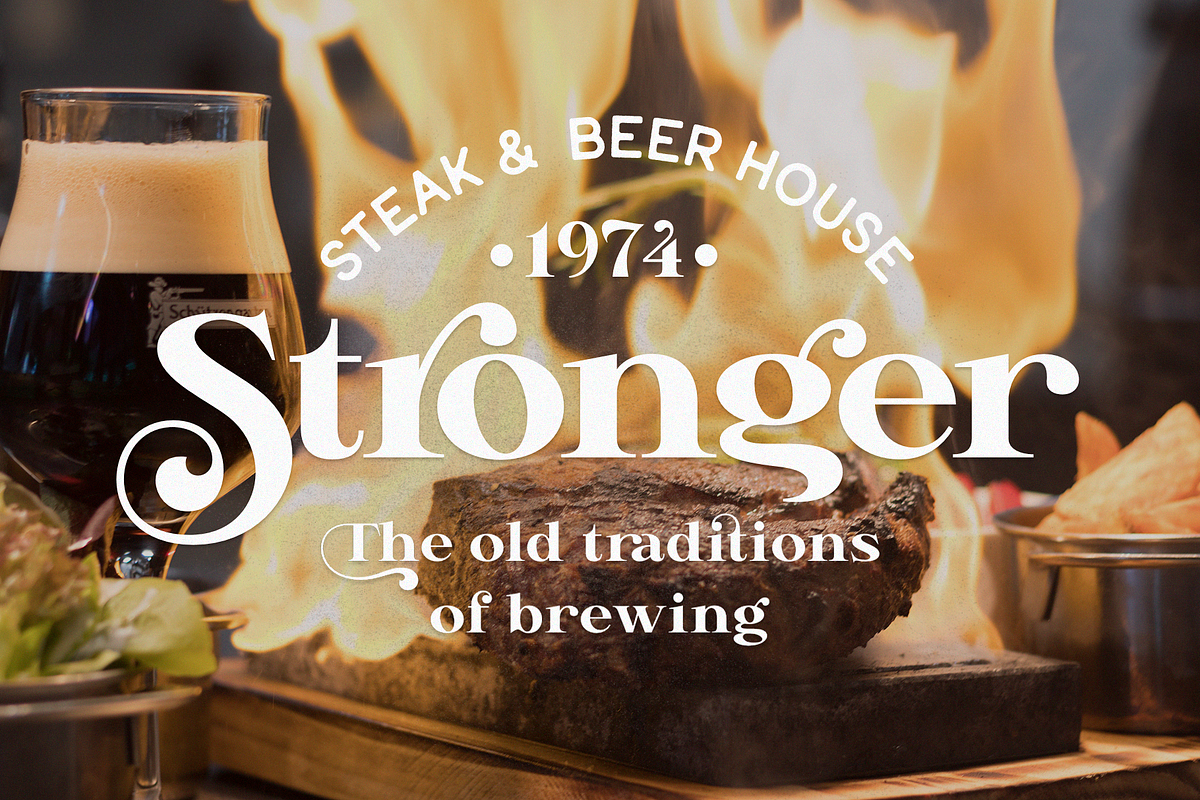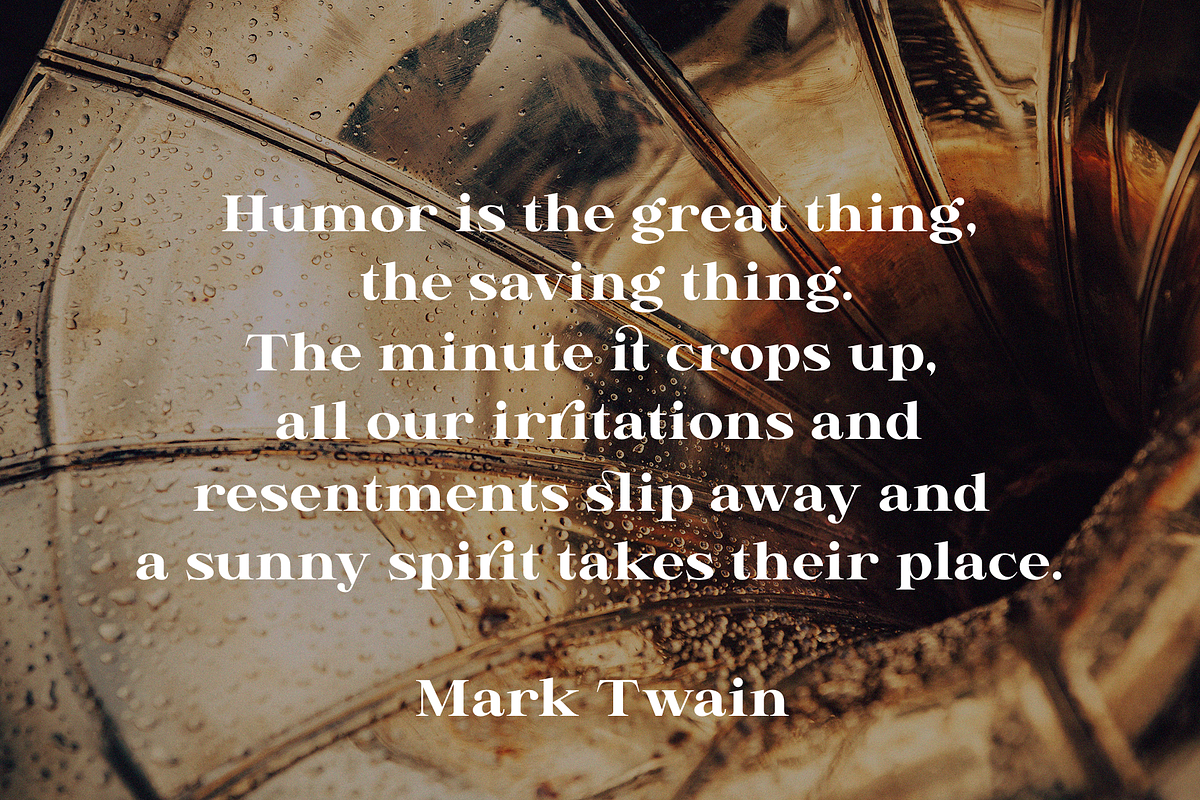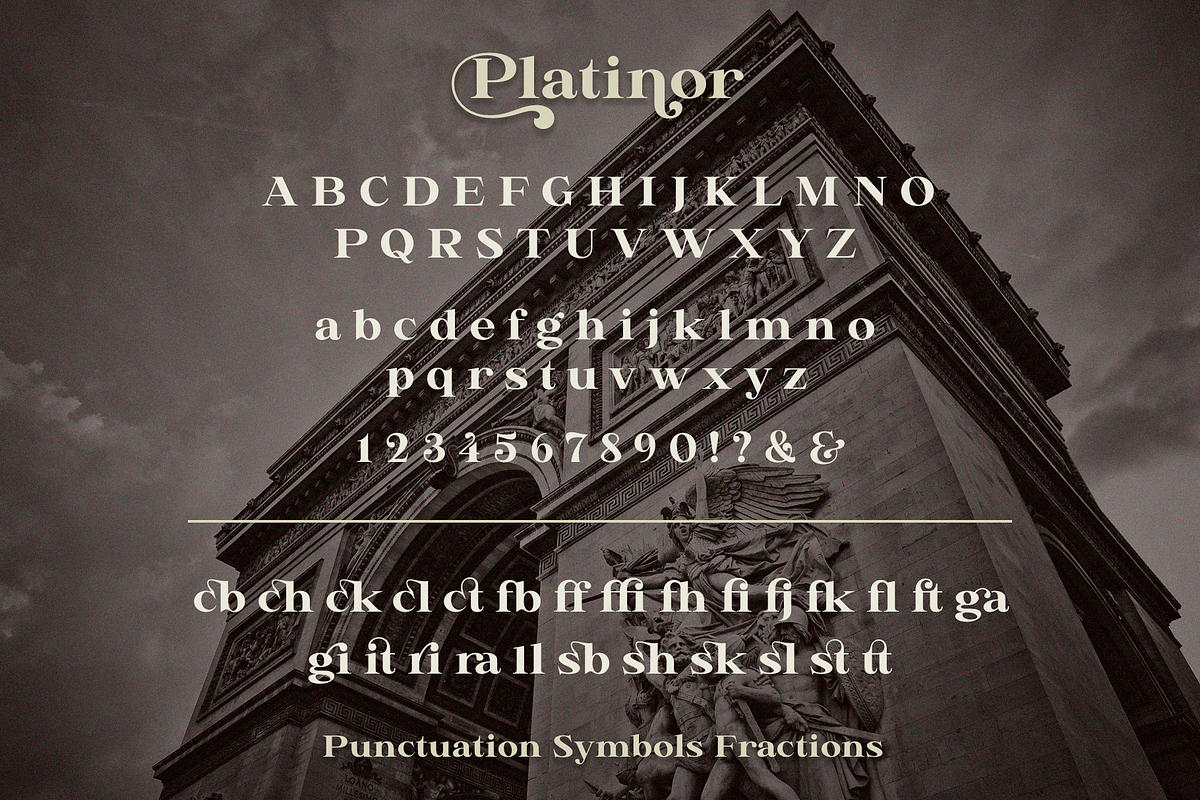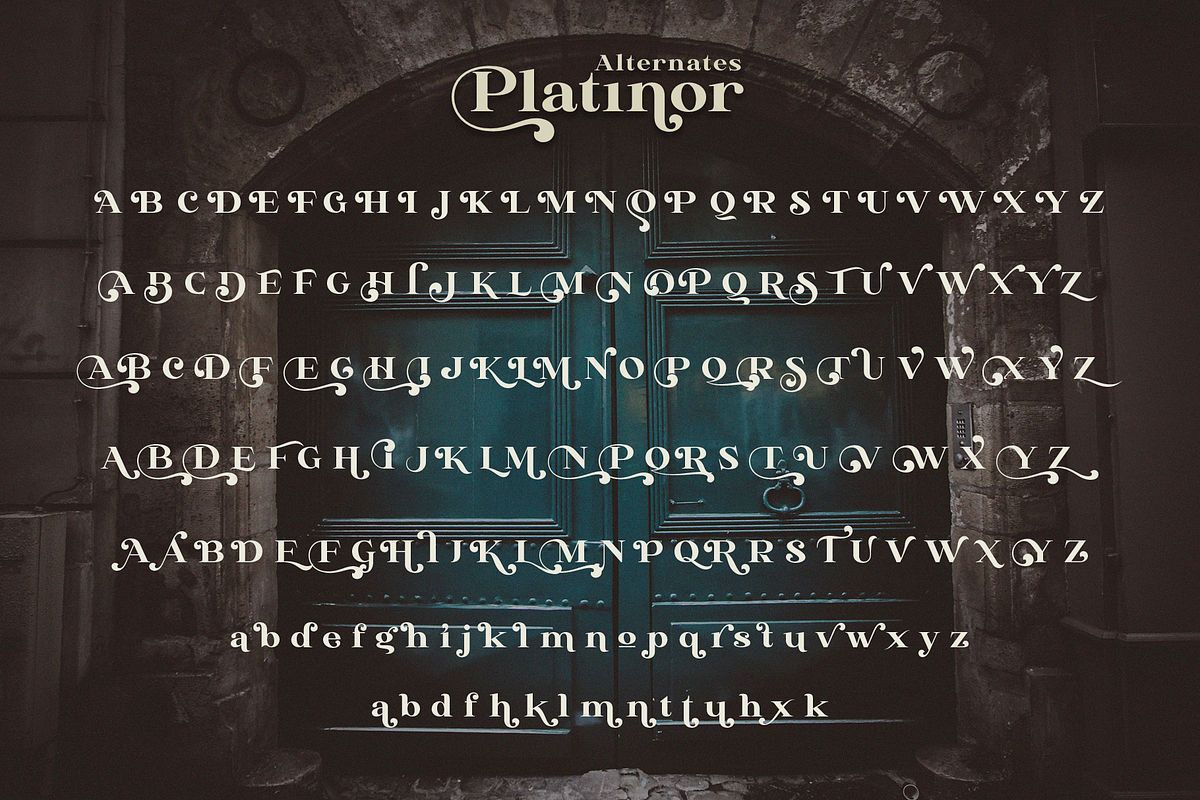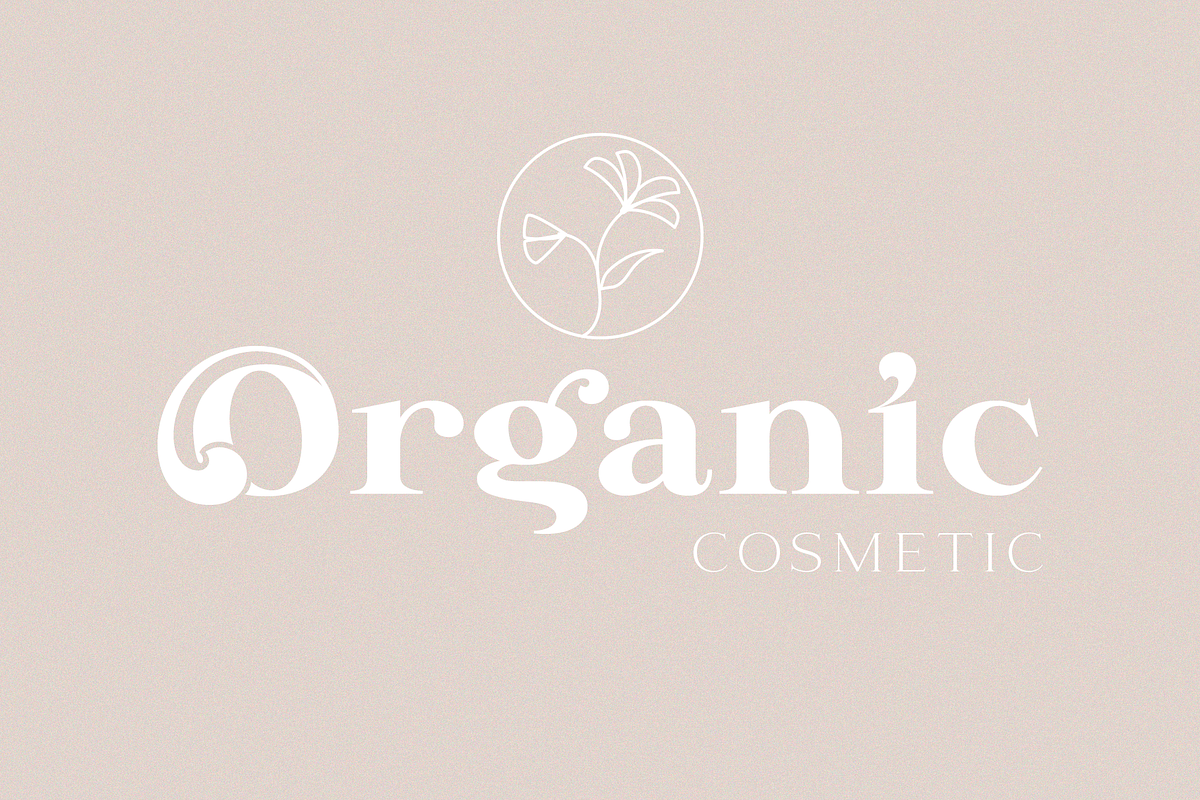
Platinor
Platinor this is a beautiful and elegant serif font. You can use this font in the classical style, with it you can highlight exactly what you need. So same he can be more expressive, playing and more vintage due to the many alternatives and ligatures that are harmoniously combined in this font. Try changing alternatives, ligatures and you will get many options for your project, which will make it unique. This font is easy to use has OpenType features.
Following international symbols support: ÀÁÂÃÄÅĄÇĆÈÉÊËĘÌÍÎÏÐÑŃŁÒÓÔÕÖØÙÚÛÜŚŠŸÝŹŻŽßàáâãäåçèéêëìíîïðñòóôõöøùúûüýÿąćęłńśšźżž
Full alphabet with Uppercase and Lowercase A-Z
Numbers, fractions
Punctuation and symbols
Alternates for Uppercase and Lowercase, also ampersand